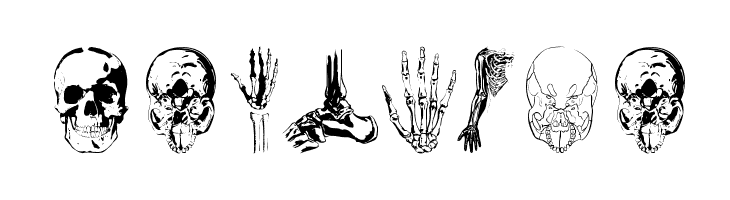
( Fonts by Manfred Klein - manfred-klein.ina-mar.com )
( Fonts by Daniel Gauthier )
A bold, jagged font with an energetic and dynamic appearance.
( Chris Pirillo - www.lockergnome.com/ )
A playful, cartoonish font featuring humorous icons and illustrations.
( Fonts by GGBotNet )
A bold, playful font with a comic-like, whimsical style.
( Fonts by GGBotNet )
A playful, bold, and italicized font with dynamic curves and a whimsical style.
( www.vnbc.fr )
A creative and eclectic display font with varied, artistic letterforms.
( Fonts by Endri Sulistyawan )
A bold, playful handwritten font with unique curls and loops.
( SDFonts. http://www.angelfire.com/scifi2/sdfonts/index.html )
A bold, fragmented font with an abstract and edgy design.
( Fonts by Diego Gonzalez )